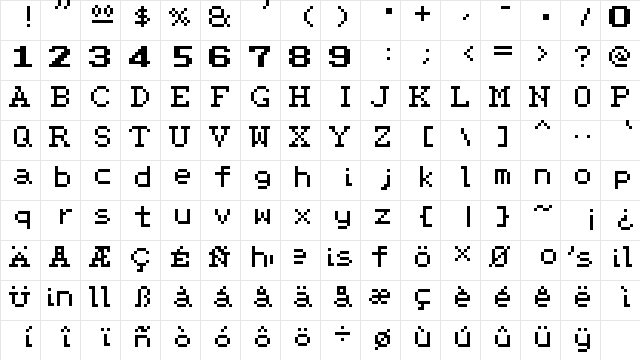
Earthbound Beginnings Regular
| Designer | Mark sensen |
Design Context for Earthbound Beginnings Typeface
Earthbound Beginnings takes a measured approach to typography — its balanced proportions and neutral character make it a reliable workhorse for both digital and print work.